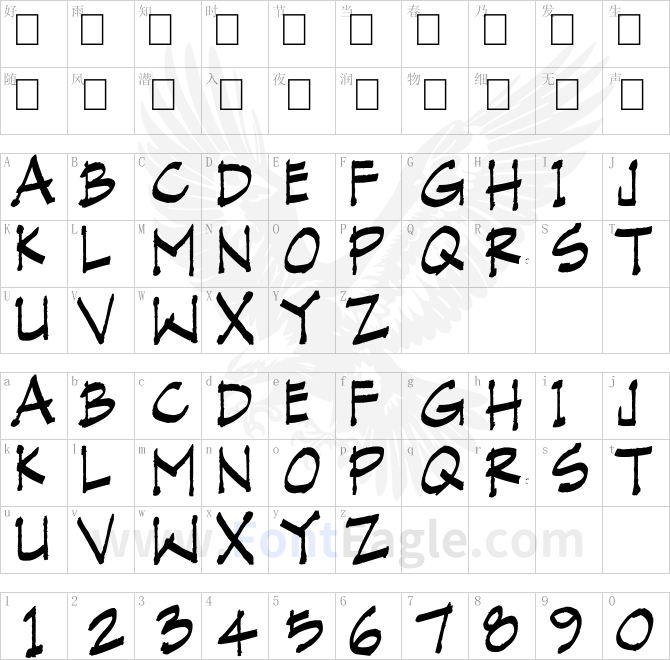
- Font name:Vranic Hand
Vranic-Hand is a great font, widely used in graphic design, single-page menu design, poster design and other fields, and is deeply loved by designers.Vranic-Hand download.